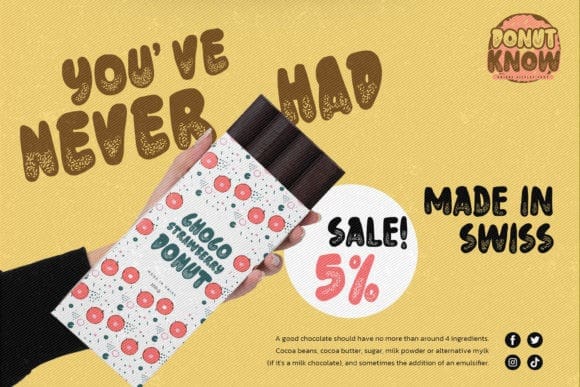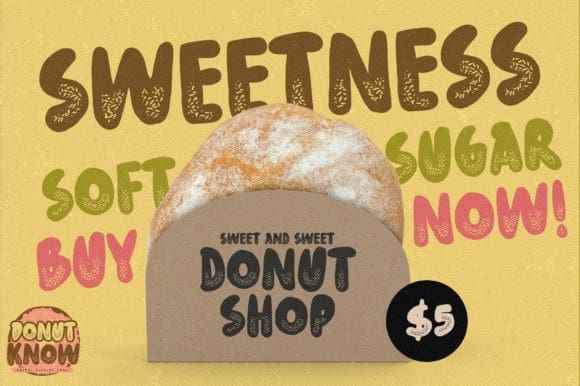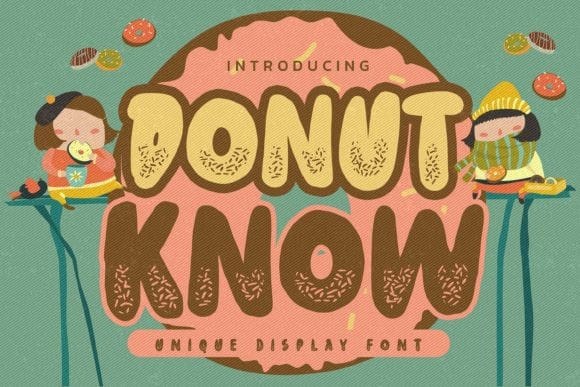
Donut Know Font
Donut Know Font is a Unique Display Font. This Playful kid with a natural feel. This handmade font will make your design has a beautiful natural touch for each detail. It is perfect for any design project as Invitation, logo, Kids, book cover, craft, or any design purposes.
That is Donut Know has a charming, authentic, and relaxed characteristic more natural look to your text.